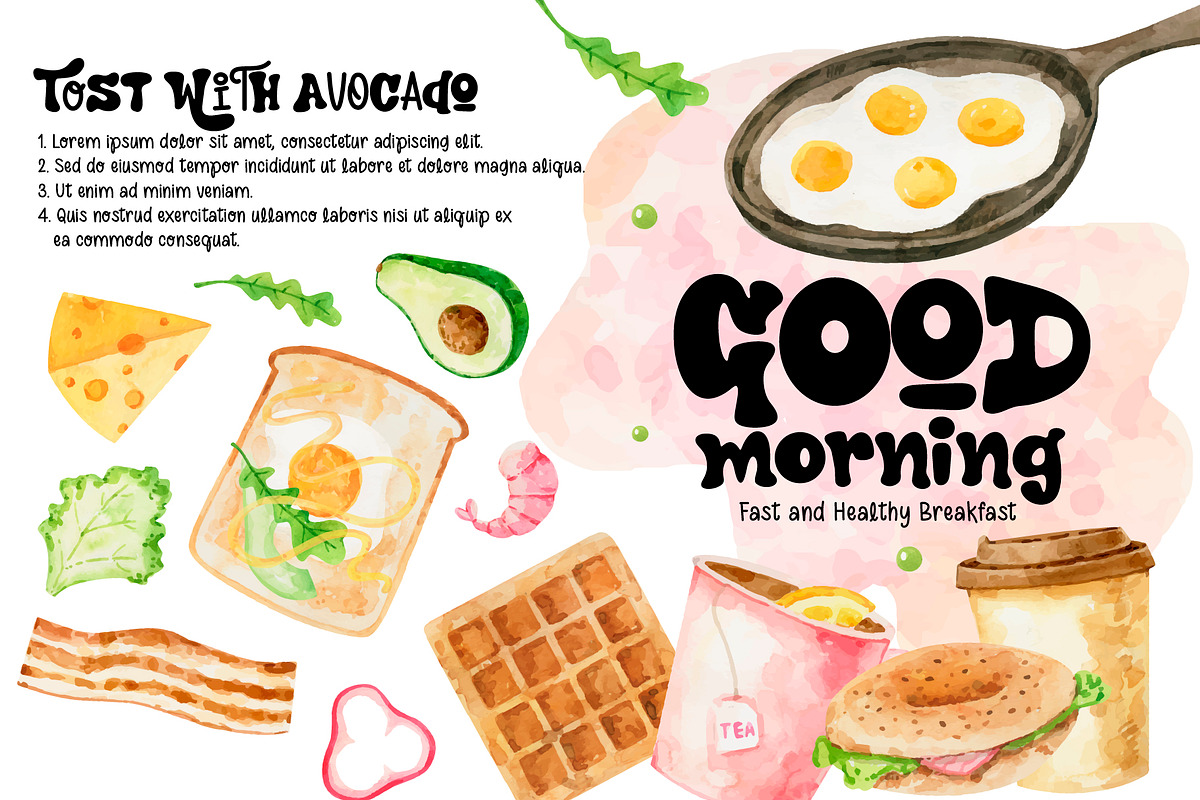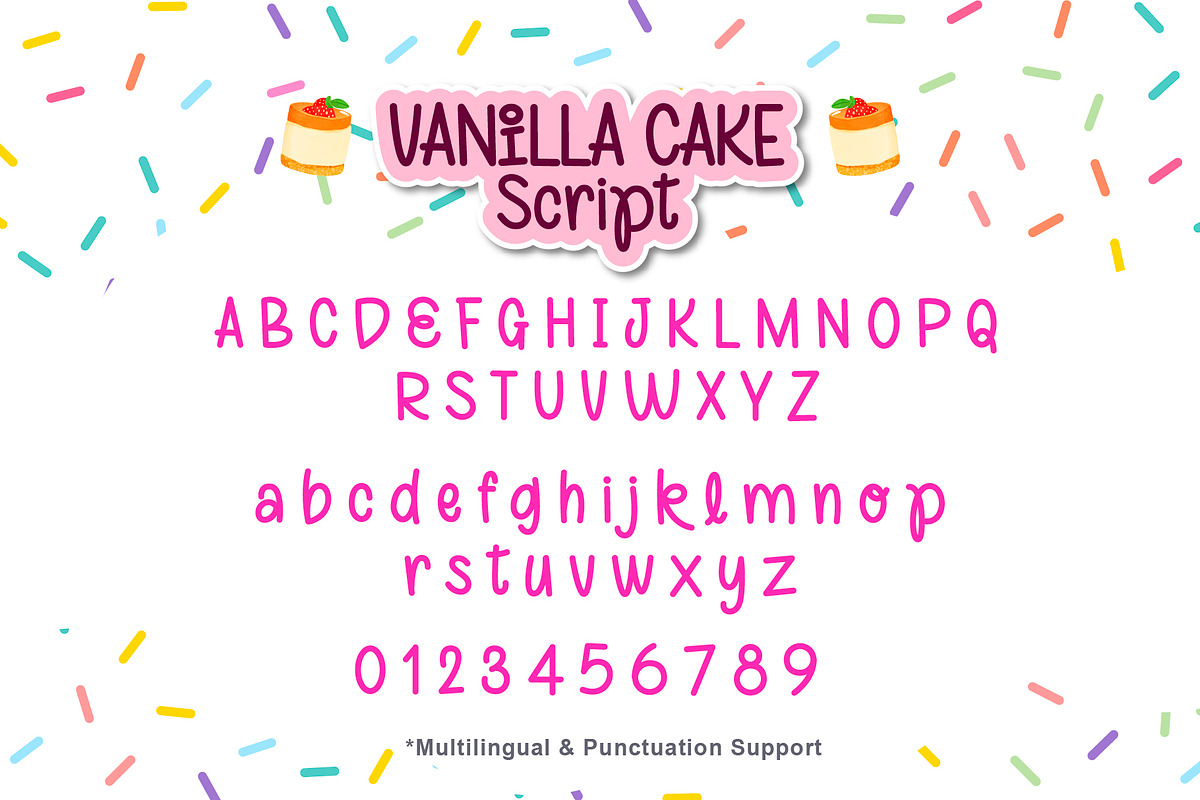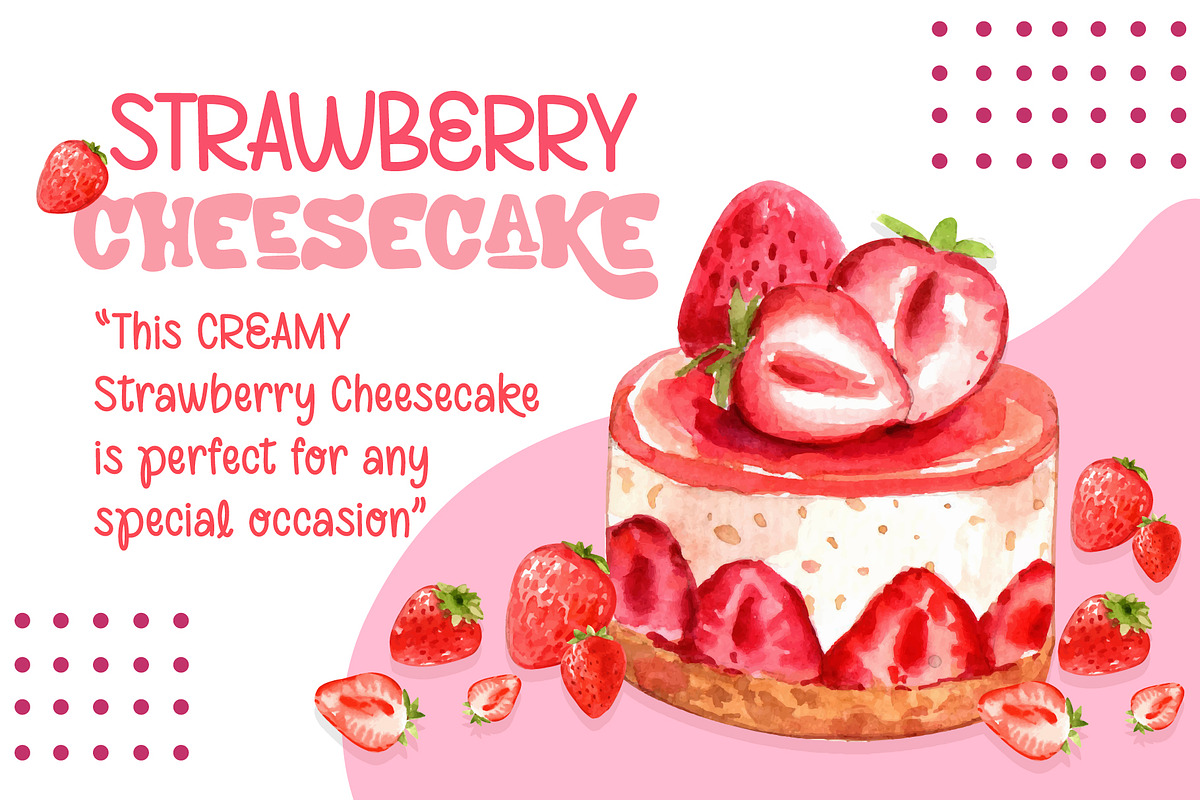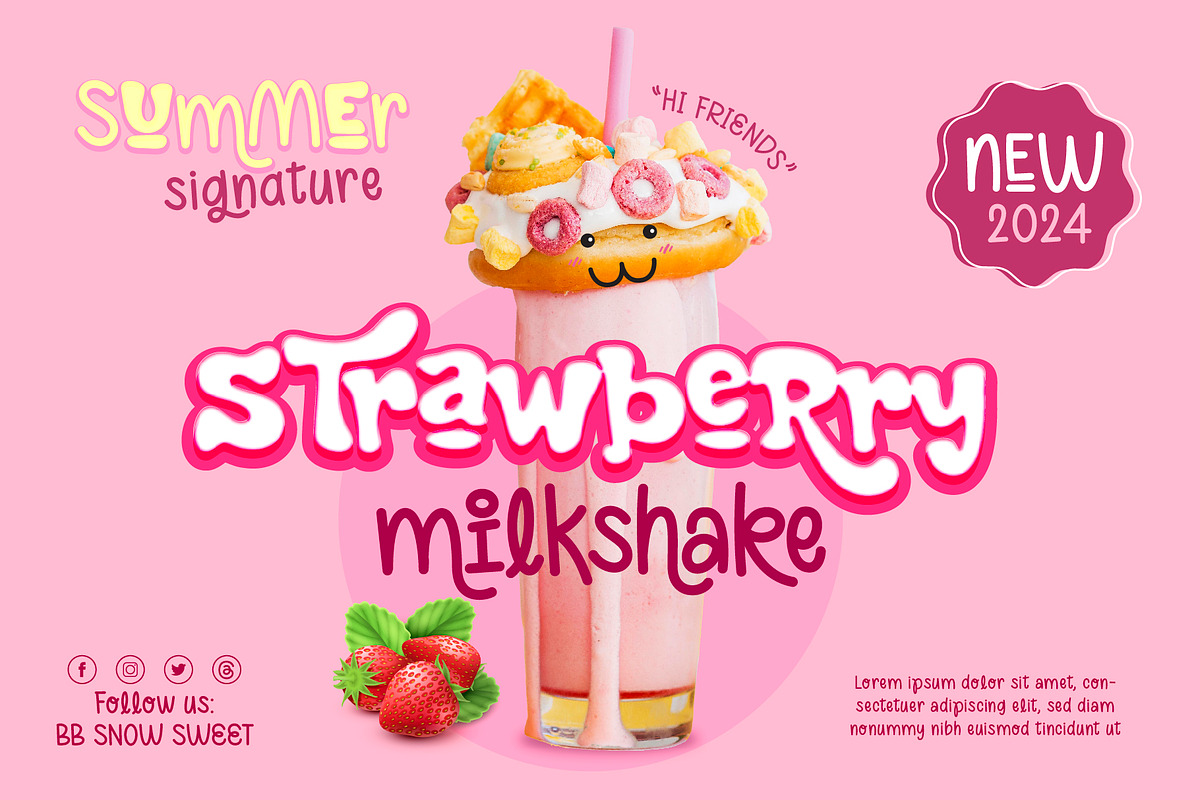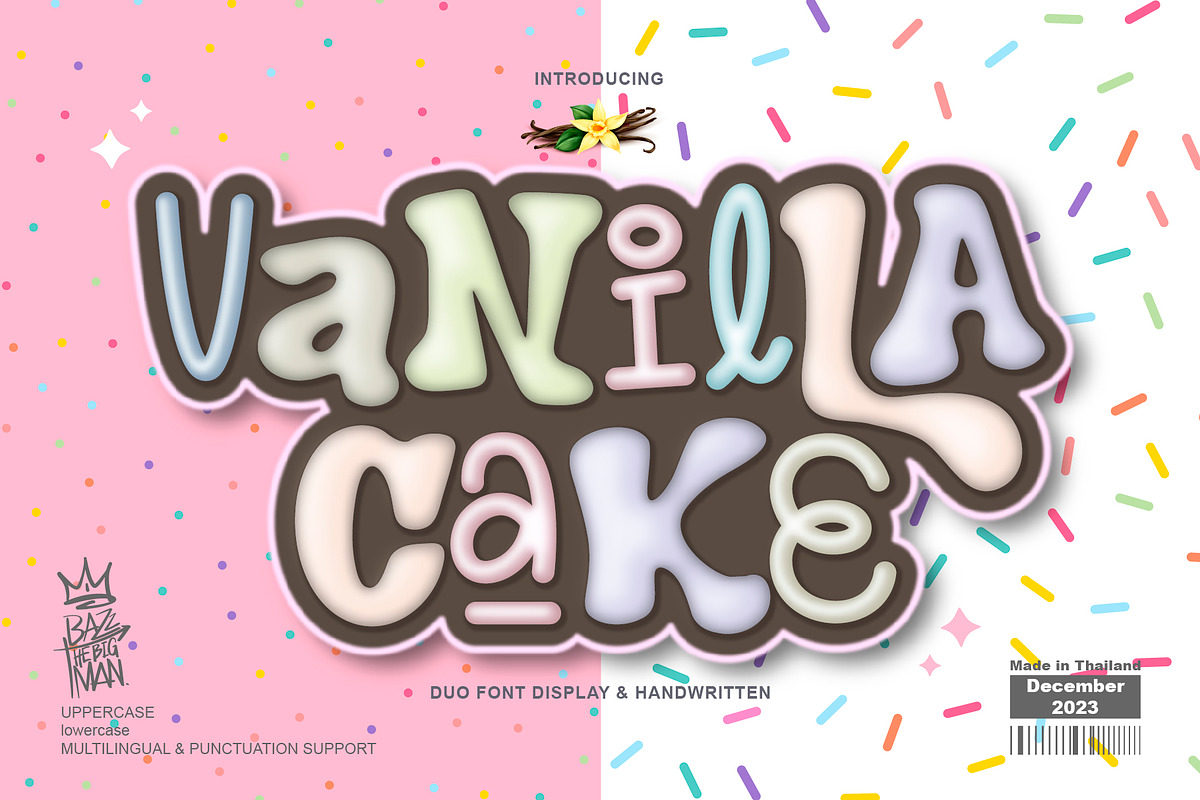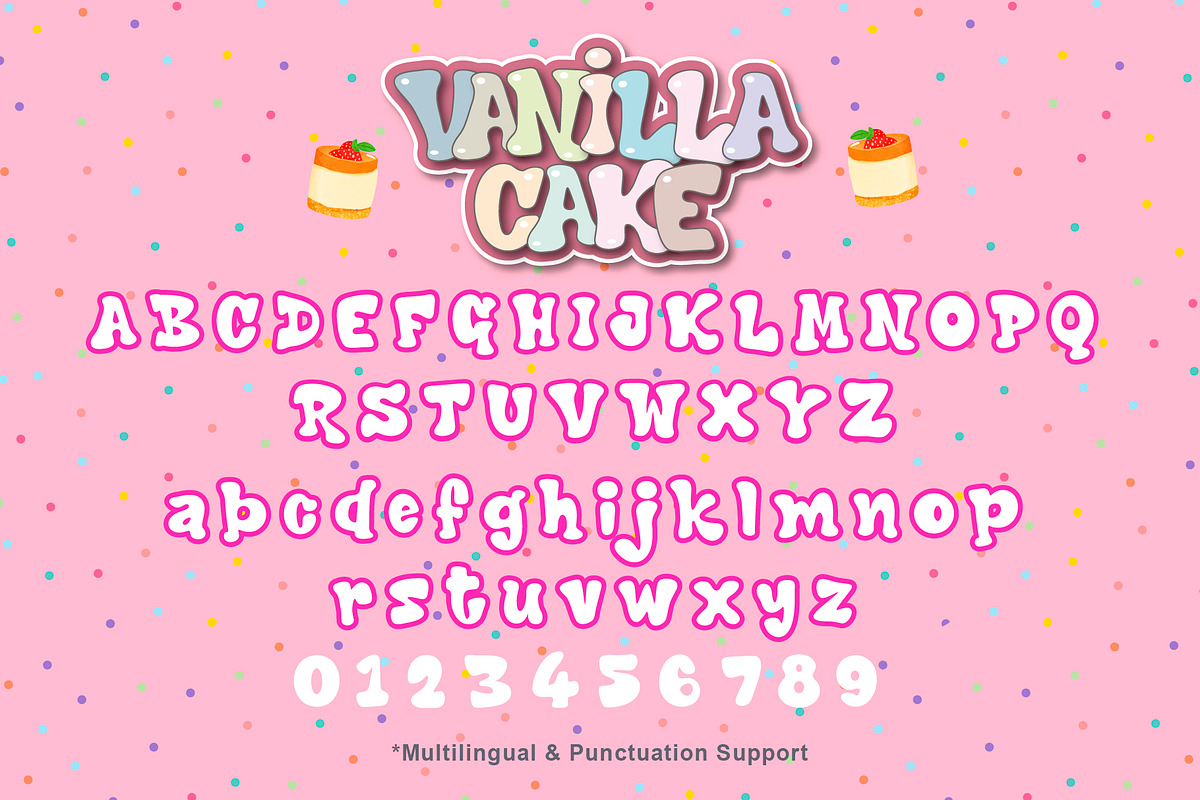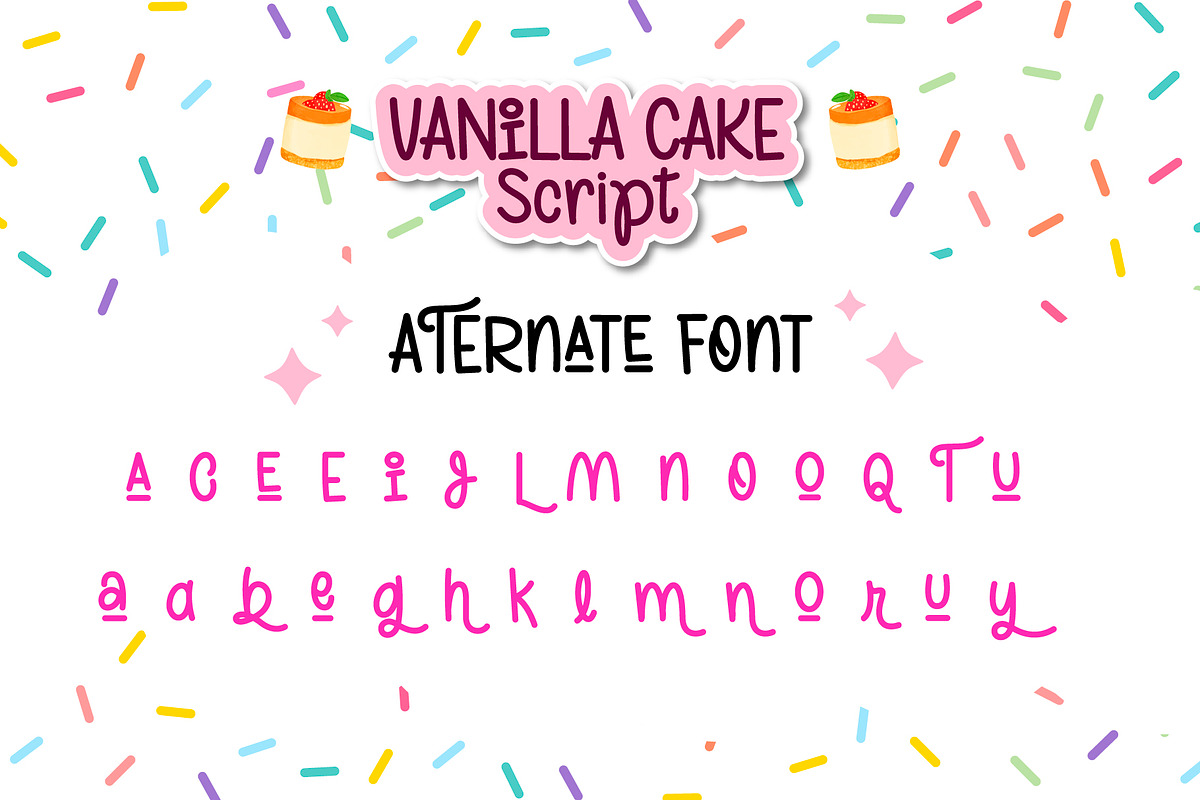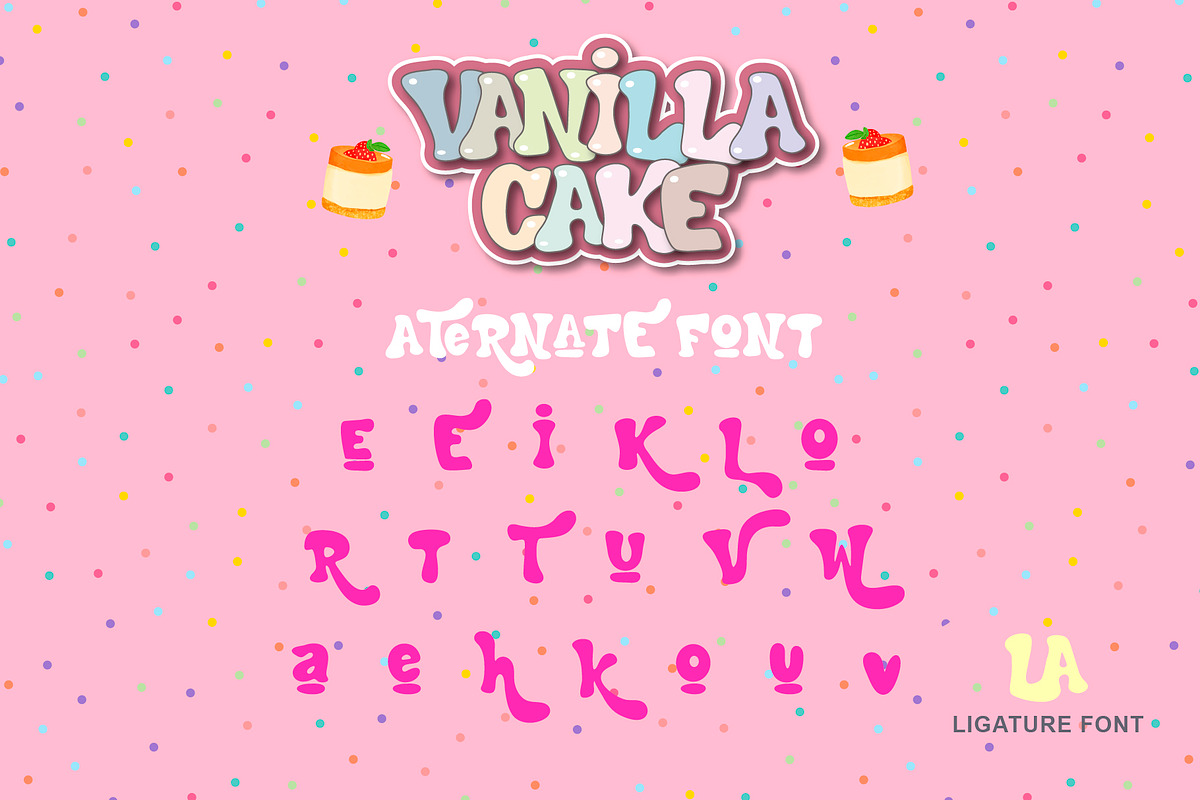
Vanilla Cake
Vanilla Cake font is a duo handwritten, and display font that feels equally charming and delicate. Fall in love with its incredibly versatile style and use it to create gorgeous posters, beautiful stationary art, eye-catching social media posts, and much more!